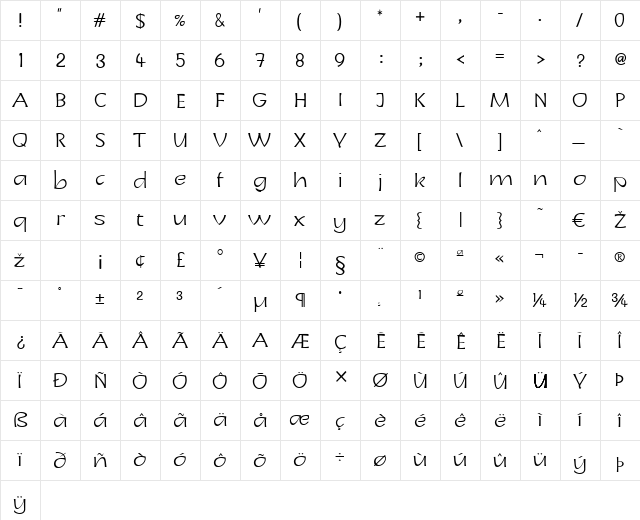
LTCharon Light Regular
| Designer | Renate Weise |
Design Context for LTCharon Light Typeface
LTCharon Light offers clean, dependable letterforms without strong stylistic allegiance, making it a practical choice for designers who need flexibility. The delicate stroke weight brings airiness and refinement to layouts.